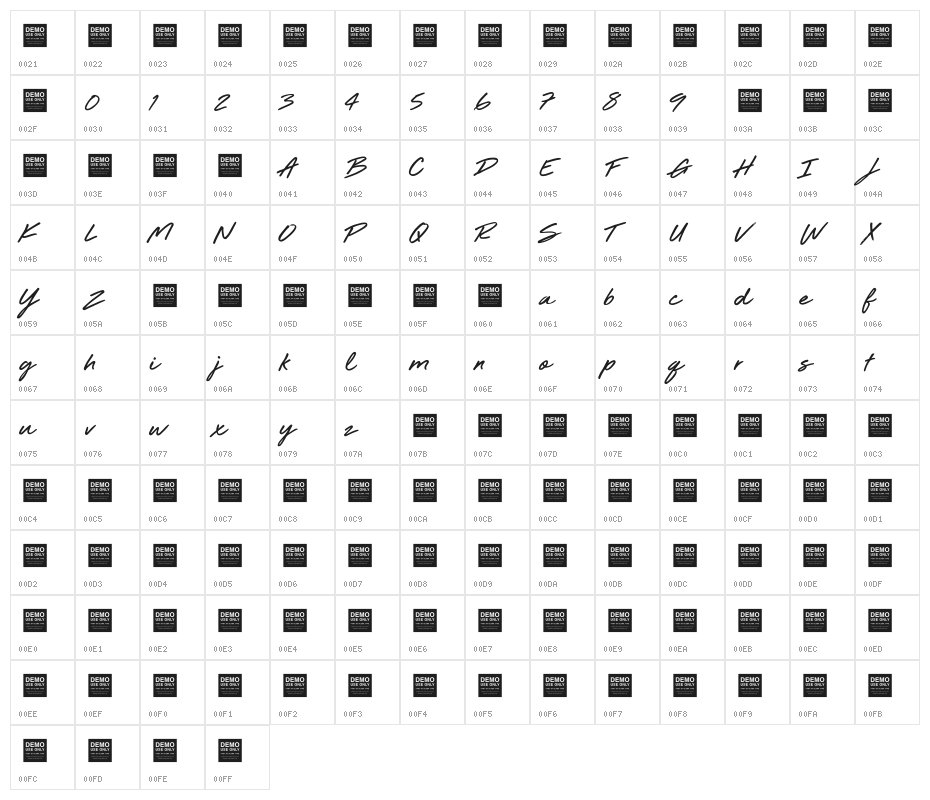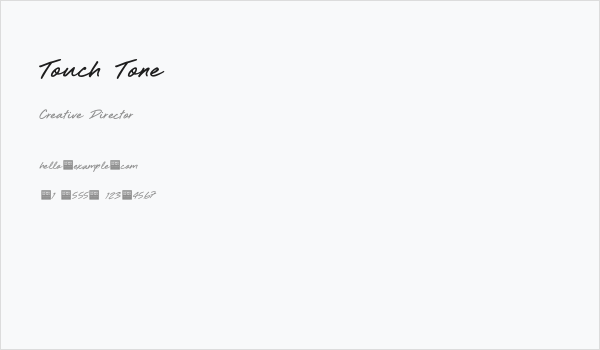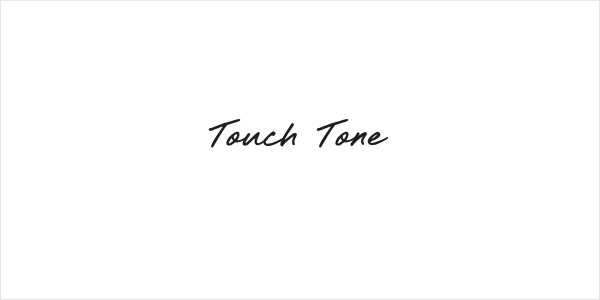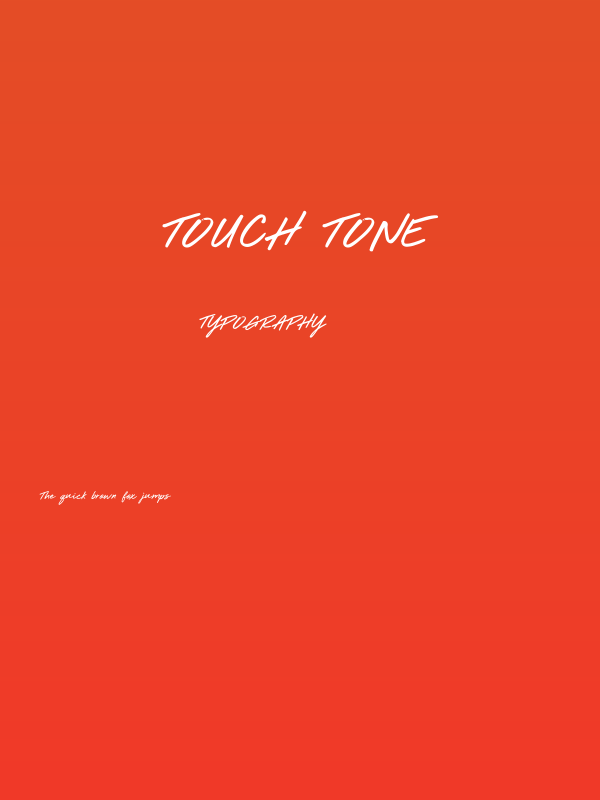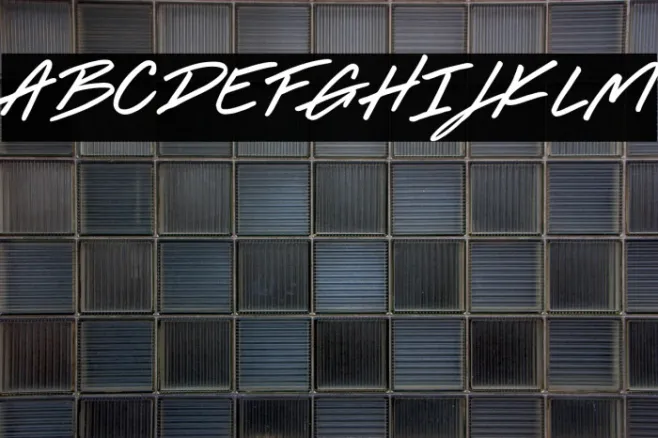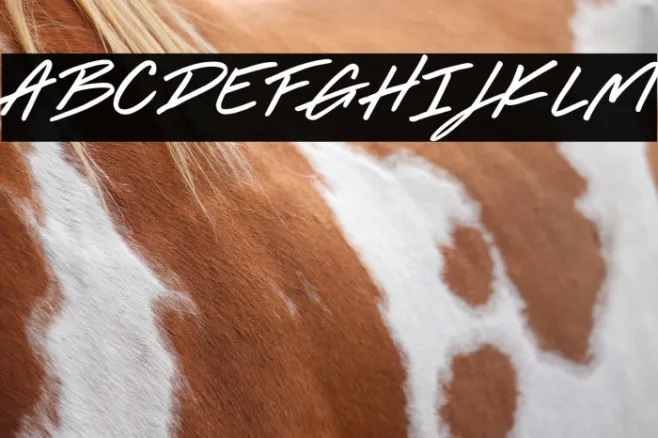
Touch Tone Font
Touch Tone Description
This font features a dynamic and fluid handwritten style, characterized by its slanted and connected letterforms that mimic natural handwriting. The strokes are smooth and flowing, giving it an elegant and personal touch. The uppercase and lowercase letters maintain a consistent style, with a slight variation in size and form to enhance readability. Numbers and special characters are crafted to match the overall aesthetic, ensuring a cohesive look. This font exudes a sense of casual sophistication, making it suitable for projects that require a personal or artistic flair.
| Proposed Projects | Ideal for wedding invitations, personal branding, greeting cards, and artistic projects. |